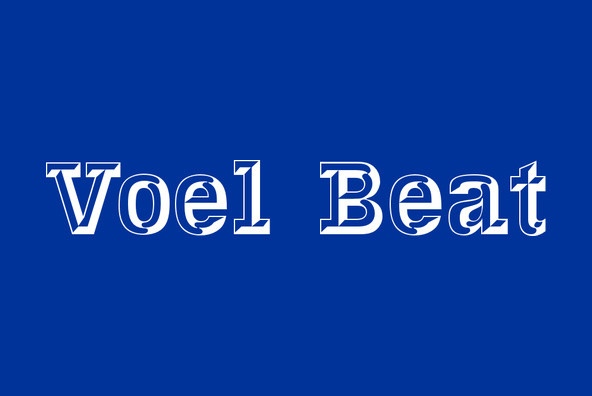
Voel Beat Font
Voel Beat Font is perfect for music industry branding, rhythm-focused entertainment campaigns, dynamic audio equipment marketing, beat-driven fitness promotions, energetic dance studio materials, pulsating nightclub signage, musical event designs, and vibrant lifestyle brands.
What makes Voel Beat Font exciting is its rhythmically pulsating character that captures the infectious energy and driving force of musical beats through dynamically crafted letterforms that seem to move with the rhythm and pulse with sonic energy. The font features flowing shapes with beat-inspired details that evoke the powerful momentum and emotional connection found in music that makes you feel the rhythm in your soul. Its musical aesthetic and rhythmic authenticity make it perfect for brands that want to communicate musical passion, rhythmic energy, and the kind of beat-driven excitement that gets people moving while creating memorable experiences that celebrate the universal power of rhythm and the irresistible urge to dance.
Voel Beat Font family includes various rhythmic weights such as Light, Regular, Medium, and Bold variations, often featuring beat-inspired alternates and musical decorative elements. The family may include music symbols, rhythm ornaments, and pulsating ligatures that enhance the font's beat-driven aesthetic, providing designers with comprehensive options for creating dynamic typographic compositions that capture the essence of musical rhythm and sonic energy.
This rhythmically energetic typeface has gained recognition among music brands and beat-focused entertainment companies seeking authentic musical typography solutions that reflect rhythmic values and sonic energy. Voel Beat Font Free Download provides an excellent opportunity to pulse with this rhythmic font before investment. The font's character set includes musical symbols and beat-inspired glyphs that work perfectly for music and entertainment industry applications. Whether you're designing for music studios, dance clubs, or rhythm-focused fitness brands, Voel Beat Font delivers the musical energy your project requires. Its versatile nature makes it suitable for various beat applications including audio equipment companies, music festivals, dance schools, and rhythm-driven lifestyle brands, ensuring your typography choices communicate musical passion and rhythmic energy while creating memorable brand experiences that celebrate the transformative power of rhythm and the universal language of musical beats through its distinctively pulsating and authentically musical visual character.